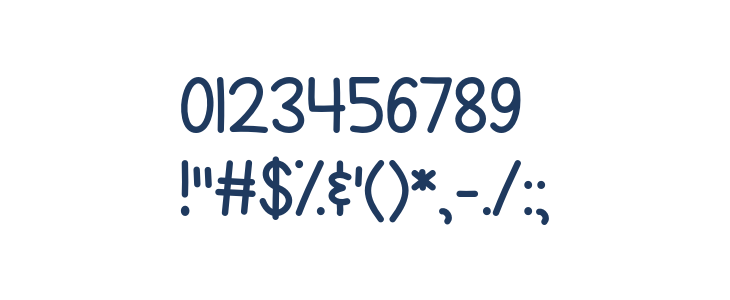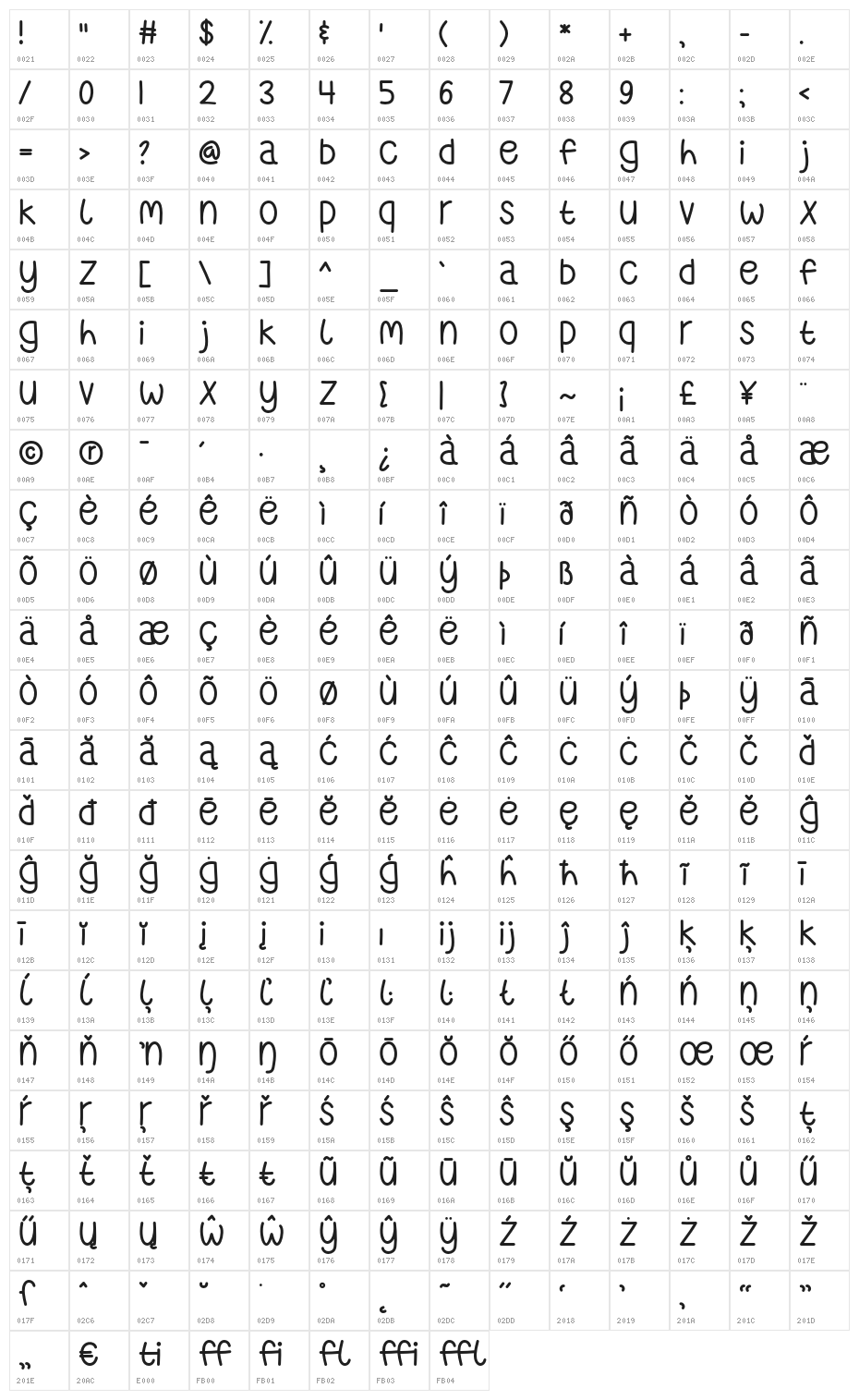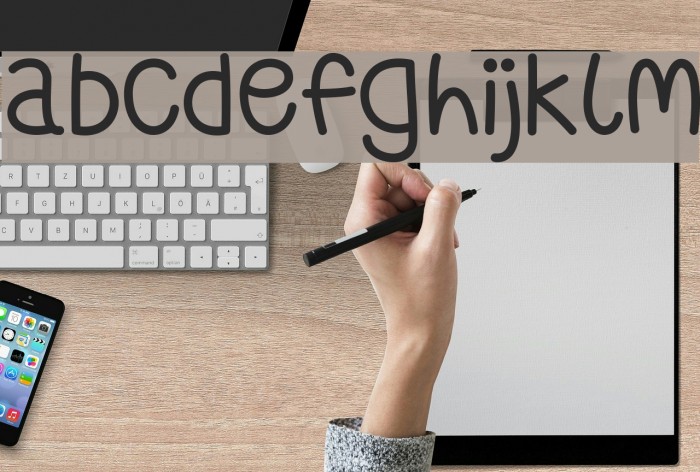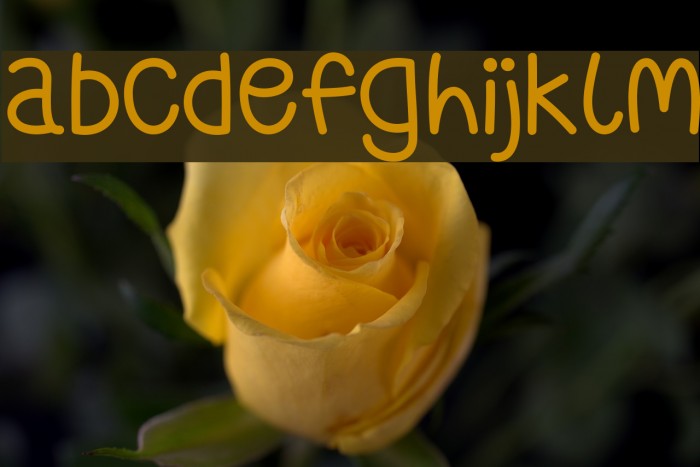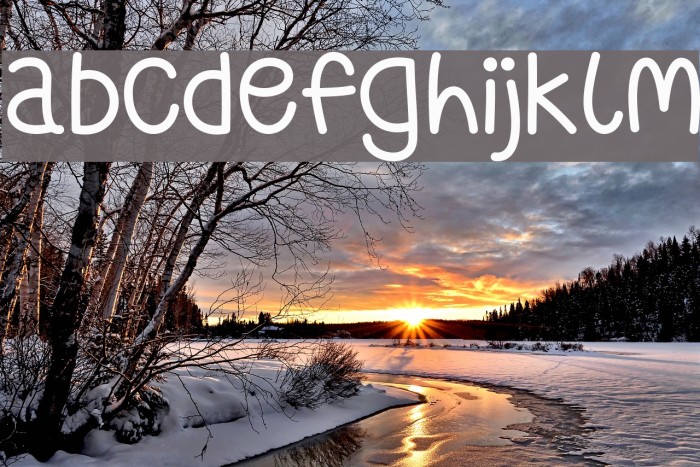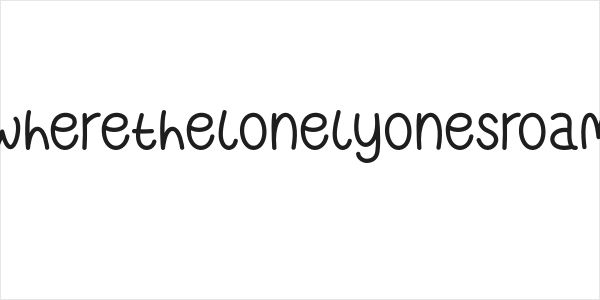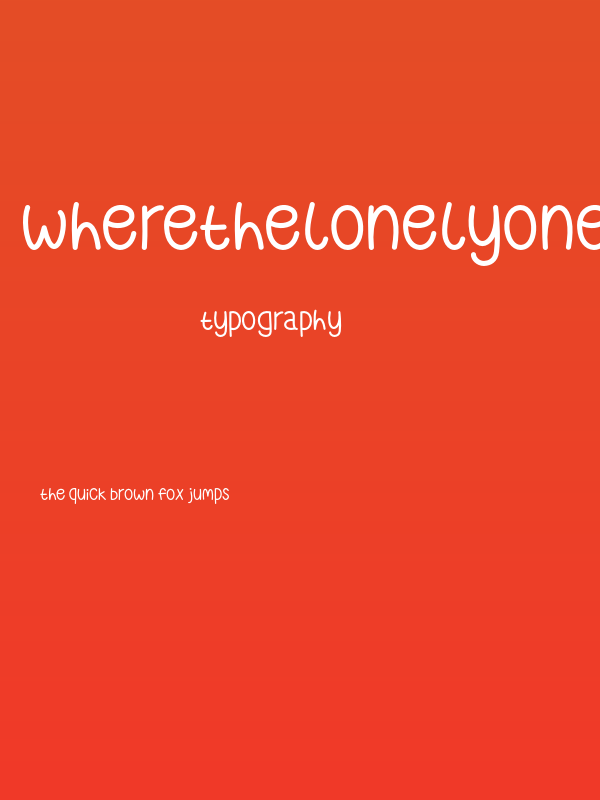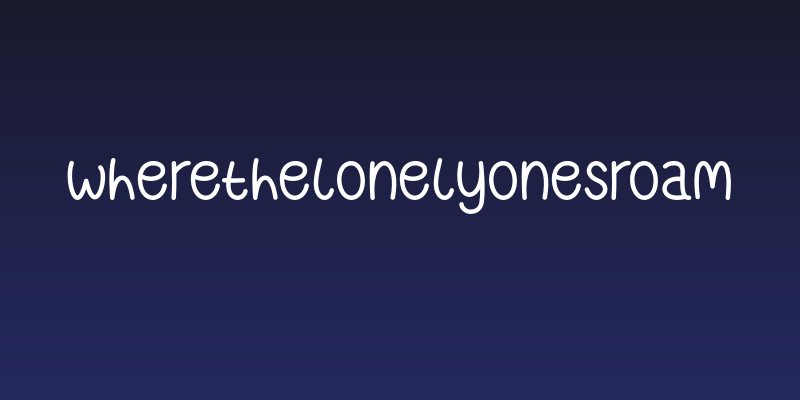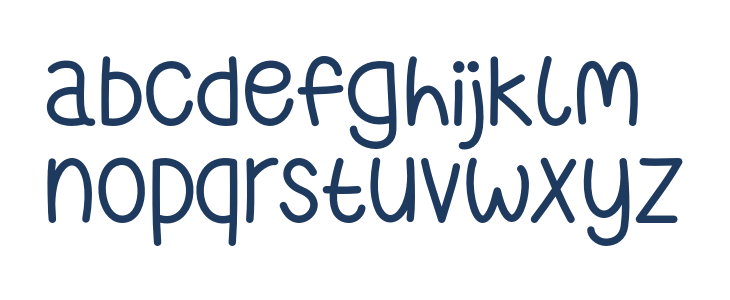
WheretheLonelyOnesRoam Font
WheretheLonelyOnesRoam Description
This playful and rounded font features a handwritten style that exudes a sense of friendliness and approachability. The characters are uniformly thick, with a consistent stroke width that gives the font a balanced appearance. The rounded edges and slightly irregular shapes contribute to its informal and casual vibe, making it ideal for projects that require a personal touch. The font includes a full set of lowercase and uppercase letters, numbers, and a variety of special characters, ensuring versatility in its application.
| Proposed Projects | Ideal for children's books, greeting cards, playful branding, and informal invitations. |